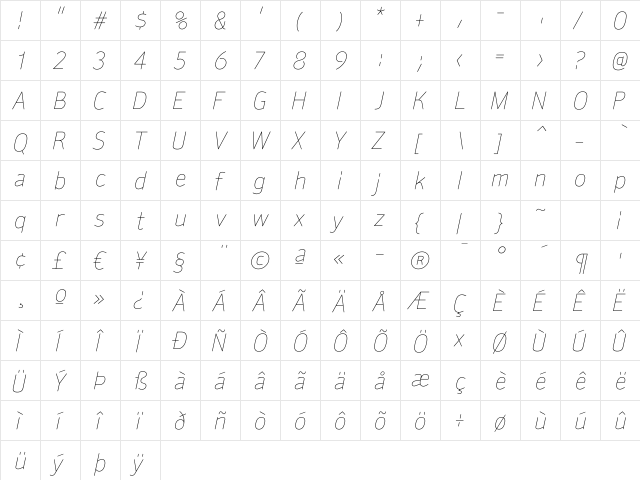
SylviaLight Italic Regular Font Preview
Design Context for SylviaLight Italic Typeface
SylviaLight Italic takes a measured approach to typography — its balanced proportions and neutral character make it a reliable workhorse for both digital and print work. The slanted form adds forward momentum and visual energy. Its slender proportions lend an understated elegance to any composition.
Pro Tip: Try SylviaLight Italic for annotation and caption copy alongside an upright companion — the contrast in angle creates a dynamic but ordered typographic system.